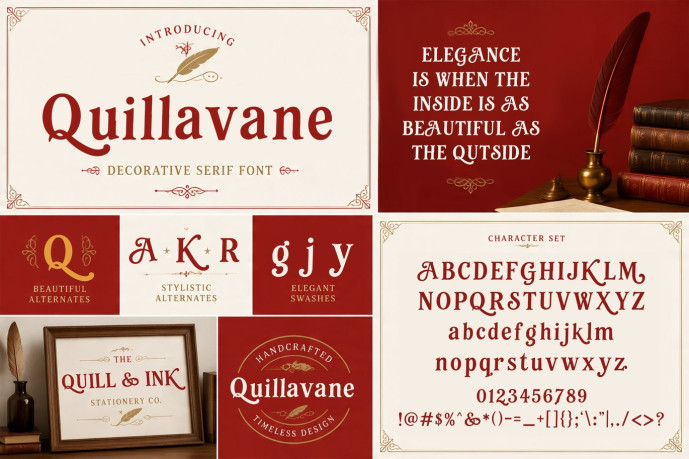
Quillavane – Classic Decorative Serif Font
Quillavane is a classic decorative serif font with timeless charm and elegant vintage character. Inspired by old literature, handwritten letters, fine stationery, classic book covers, and traditional editorial typography, this font brings a refined and sophisticated look to any design project.
With its graceful serif details, ornamental letterforms, stylish alternates, and elegant swashes, Quillavane is perfect for creating beautiful logotypes, book covers, wedding stationery, luxury branding, packaging, invitations, quotes, labels, and vintage-inspired designs.
Classic decorative serif style
Elegant vintage-inspired letterforms
Uppercase and lowercase characters
Numbers and punctuation included
Beautiful stylistic alternates
Elegant swashes
Timeless and refined personality
Perfect for logos, book covers, stationery, and branding
Great for luxury, editorial, and vintage design projects